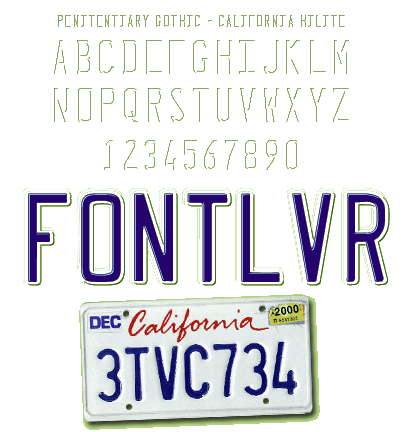
This font is one of four which work together to more accurately replicate the lettering seen on California state license plates. This hilight weight should be used in a color equal to about 10% of the fill weight.